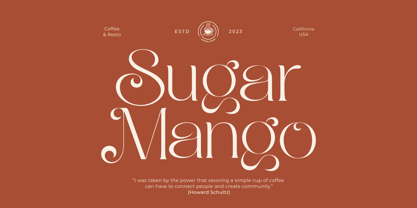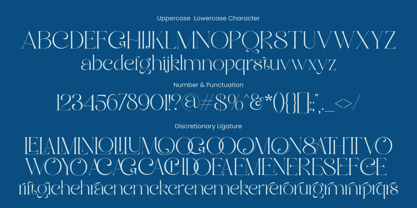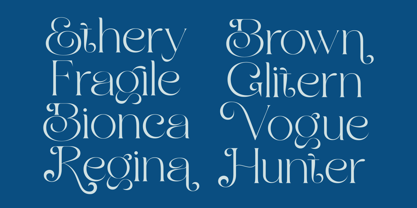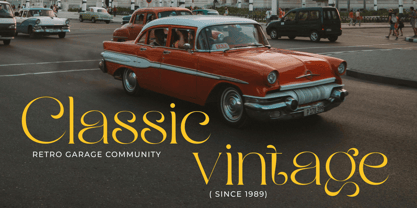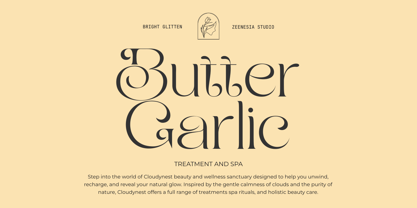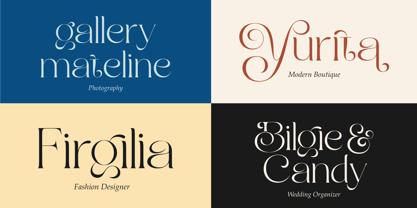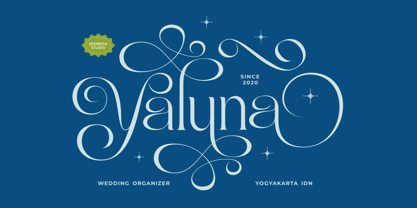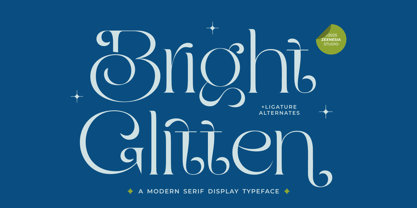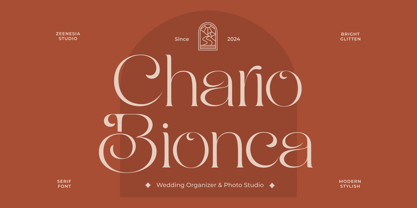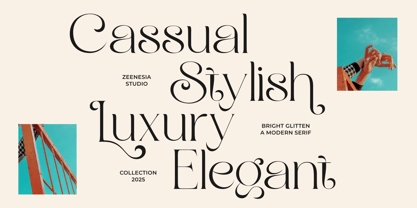
Bright Glitten
by Zeenesia Studio
The Bright Glitten Font Family was designed by Doni Purwoko and published by Zeenesia Studio. Bright Glitten contains 2 styles and family package options. More about this family
Bright Glitten is a modern serif display typeface that shines with elegance and creativity. Designed with stylish curves, graceful swashes, and unique ligature alternates, this font captures attention instantly. Its refined details and glamorous personality make it perfect for high-end branding, editorial design, wedding invitations, packaging, and any project that needs a touch of luxury and sparkle. With its balance of sophistication and playful charm, Bright Glitten transforms ordinary text into a stunning visual statement.